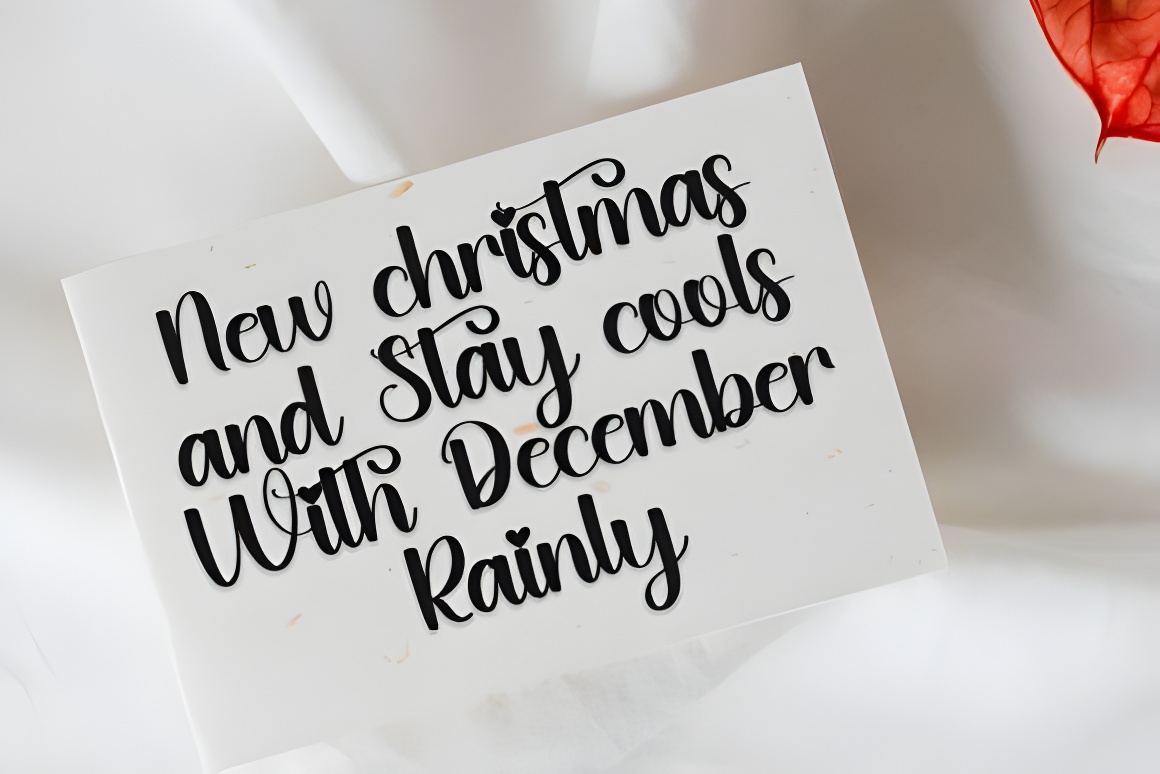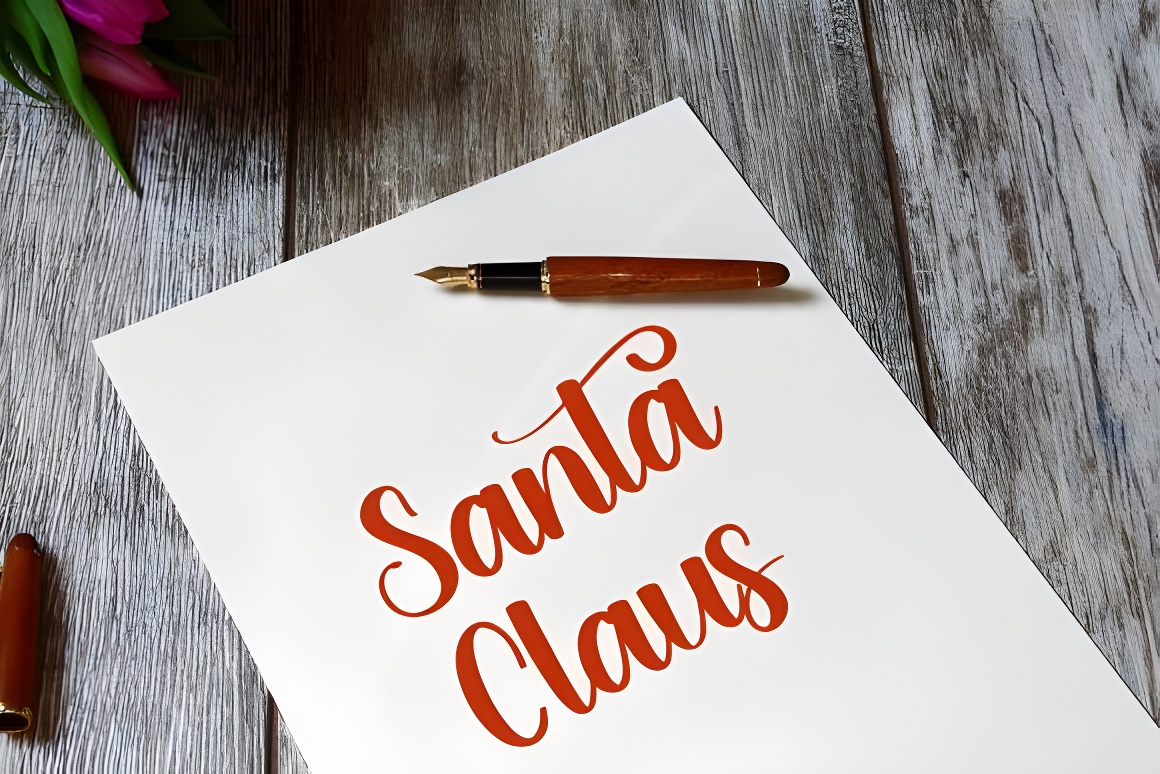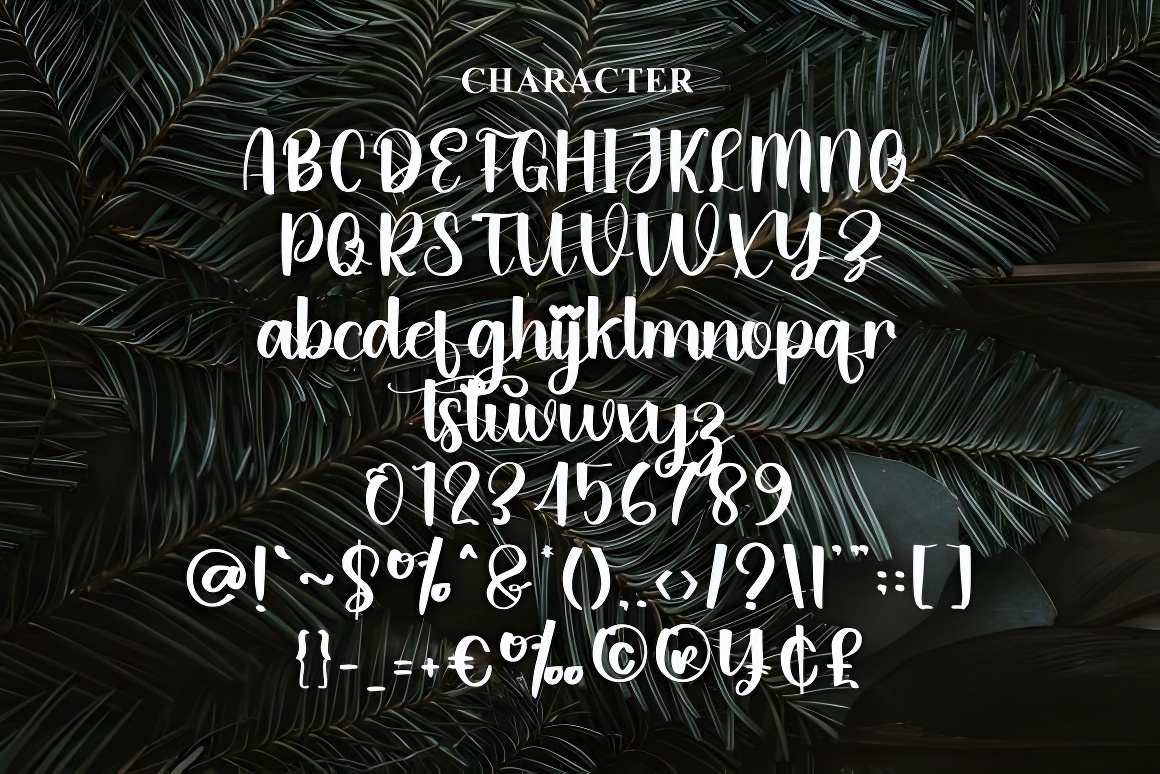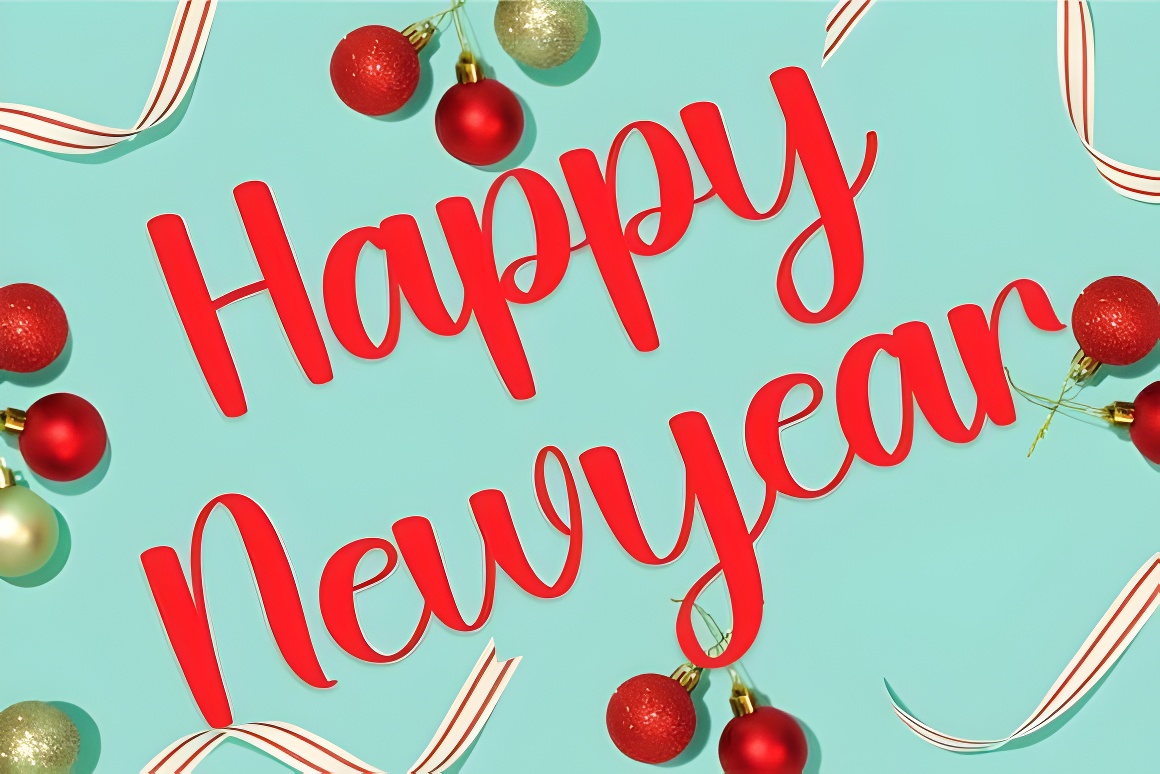
Festive Christmas Font - Merry Holiday Typeface & Decorative Symbols
Festive Christmas font with decorative elements & whimsical flair. Perfect for holiday cards, gift tags, & seasonal designs. Create nostalgic charm. PUA encoded for easy access to all glyphs & ligatures.